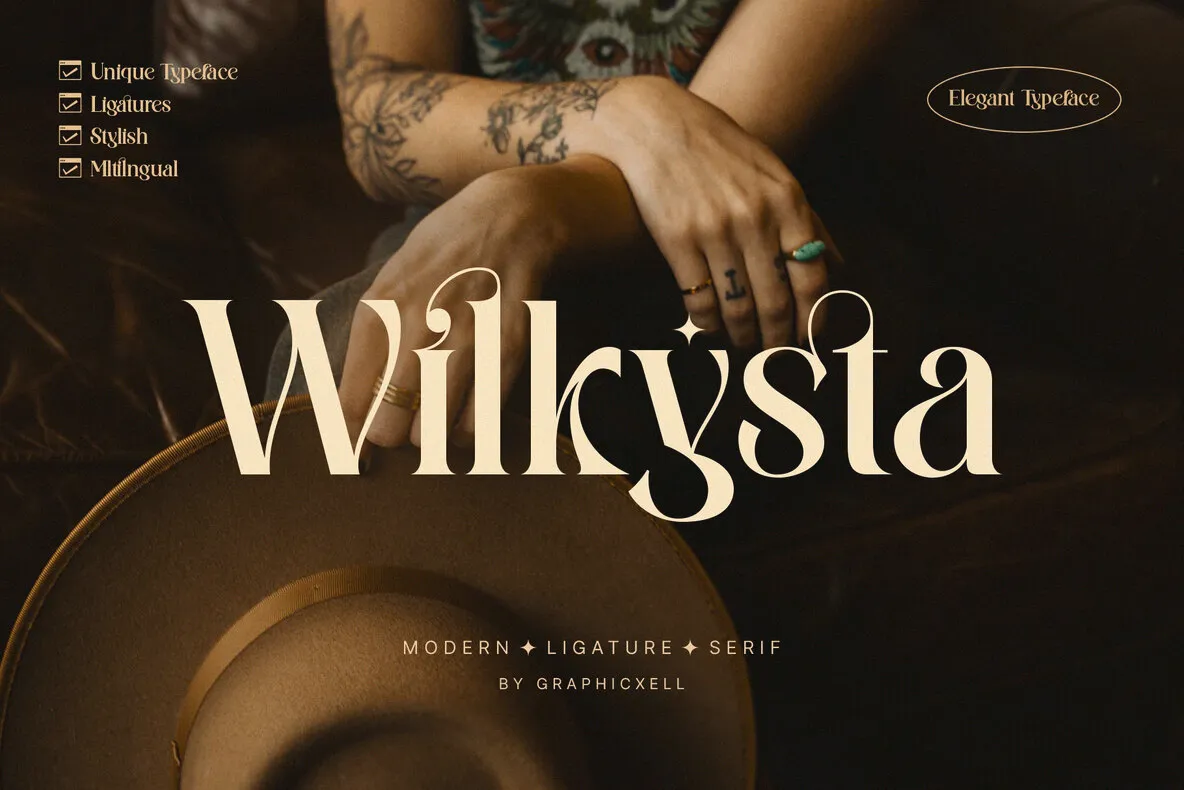
Any culinary business with gourmet quality as its selling point requires special marketing methods, including desserts. From emphasizing the specialty ingredients to using classic branding fonts, gourmet desserts must communicate specific messages. You must make the customers feel that they pay for quality!
There is an idea of refinement, luxury, and high quality behind the word “gourmet”. When you make and market gourmet desserts, you sell more than sweet food. You promote the finest ingredients, impeccable preparations, exceptional flavors, and distinctive experiences to your customers.
You can see examples from the best pastry shops in France, known as the capital of gourmet desserts. Shops like Angelina, Stohrer, and Yann Couvreur sell specialty desserts with ingredients, techniques, and flavors most regular home cooks would not use. There are also elements of style, value, and prestige.
Therefore, marketing gourmet desserts for your business is more than just promoting delicious sweet treats. You must communicate specific values that will make your customers willing to spend money on your products!
The visual aspect is important in branding, especially for promoting gourmet desserts. Here are several ways to create distinctive visual elements that communicate gourmet values.
Your gourmet cake, pastries, or cookies may look neat, but you need to tweak them to fit the branding strategies. If you are unsure about your photography skills, invest in a professional food photography service!
Unlike regular people with cameras, food photographers have specific techniques to make their objects look more inviting. They could also emphasize elements like colors, textures, and ingredients in the photos.
Customers of gourmet desserts love knowing that you use the finest, high-quality ingredients. You can emphasize the informational aspect of the ingredients and make the customers see the value of your products.
For example, Chambelland in Paris is known for their high-quality gluten-free bread, cakes, and pastries. They emphasize the use of certified, naturally gluten-free grains from Alpes-de-Haute Province. This special ingredient becomes one of their selling values as a gourmet shop.
No successful gourmet dessert shops use regular cardboard boxes or plastic containers for their products. An exclusive packaging design will make your customers feel pampered and special. It can be a sturdy cardboard box with a dainty ornamental touch or a more exclusive-looking packaging like a marble-patterned box.
Gourmet desserts sell not only flavors and ingredients but also images and lifestyles. Use specific images when marketing your products. For example, you can sell “trendy urban life” or “elegant, sophisticated lifestyle” as background themes for your products.
To emphasize the lifestyle aspect, you can work with lifestyle influencers. Their businesses are usually related to the images of life they sell. Your gourmet desserts will fit right in their lifestyle campaigns.
A consistent branding visual will create assurance for your customers, especially when they always expect the same quality level with every order. Combining the right photos with elegant color schemes and classic fonts can boost your gourmet dessert branding.
Once you find the right combination of visual elements, make sure to apply it to all your marketing platforms. Use the same logo and color schemes on your shop website, social media accounts, and packaging.
What fonts are suitable for promoting a gourmet food business, especially desserts?
Like color schemes, fonts can evoke different feelings and themes. If you want to promote the values and qualities that reflect “gourmet”, you can use classic serif fonts. They are elegant and sophisticated, but you can modify them with different glyphs and ligatures for more distinctive touches.
Here are several recommendations you can try:
Voting Calligraphy is an elegant classic serif font with a sophisticated look. Its thin strokes and subtle vintage touch give your gourmet dessert brand a timeless look. Perfect for showcasing class, elegance, and craftsmanship in your products.
Voting Calligraphy also comes with special glyphs, artistic ligatures, and beautiful swashes. Meanwhile, the standard version has a cleaner, more seamless look—a perfect combination for creating variations in your brand visual.
Gingko is a classic serif font with a subtle, distinctive touch on some characters. You can see subtle ligatures and unique curves that create a contemporary touch—a perfect font for adding personality to your otherwise “classic” gourmet brand.
Gingko’s variations have beautiful swashes, ligatures, and glyphs; all well-proportioned and easy to read. A perfect font for marketing a gourmet dessert with a more contemporary touch.
Louis Bright is the epitome of classic elegance: airy, ethereal, and evokes luxury—a suitable font for marketing luxury businesses, including gourmet desserts. This font perfectly complements your beautiful cake, pastry, petit-four, and chocolate creations.
Wilkista has unique looped glyphs and ligatures that make it distinctive without lowering legibility. A perfect font for showcasing your gourmet desserts through labels, shop signs, business cards, and packaging boxes.
Marketing gourmet desserts requires you to understand what values your customers expect. Make sure to use the right design elements, including classic serif fonts, to deliver the message behind the business properly.